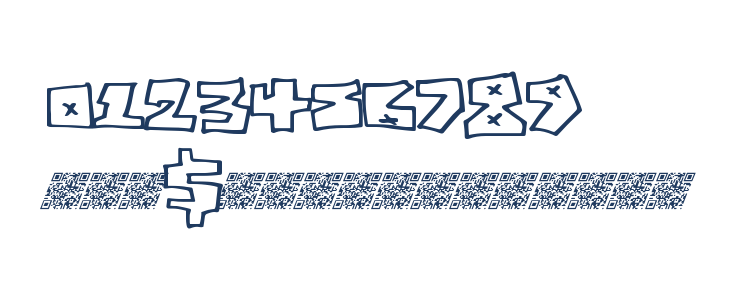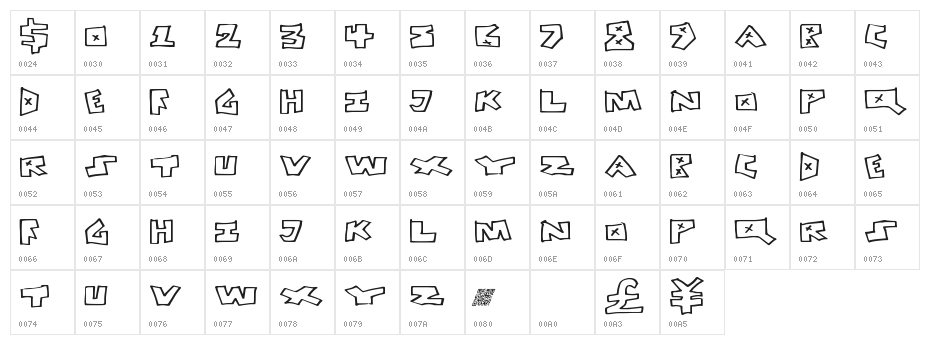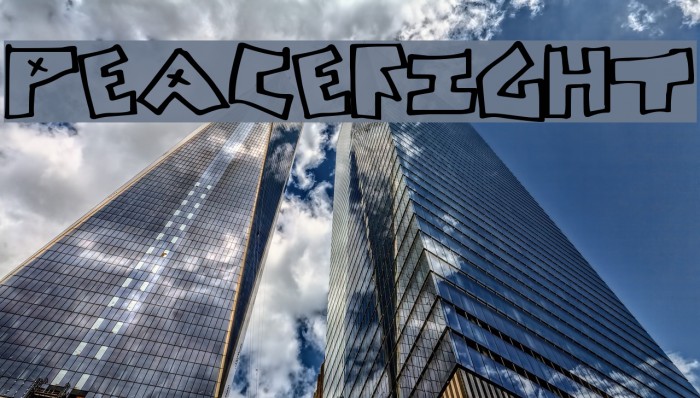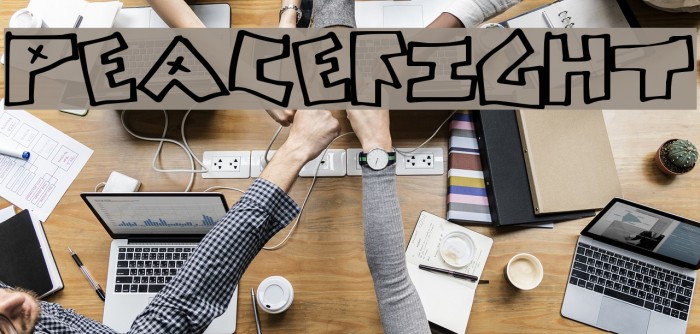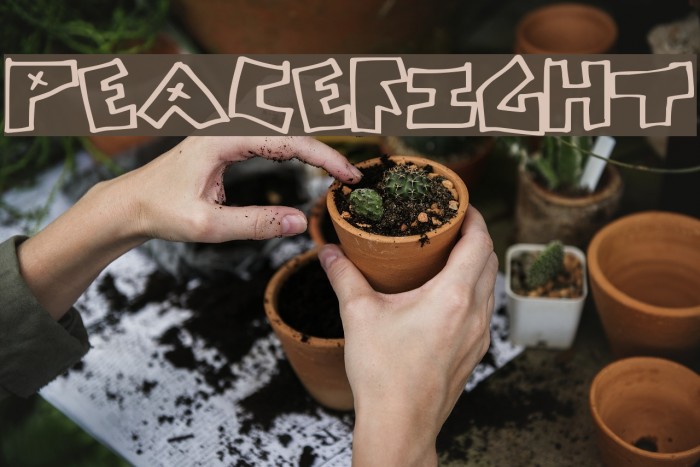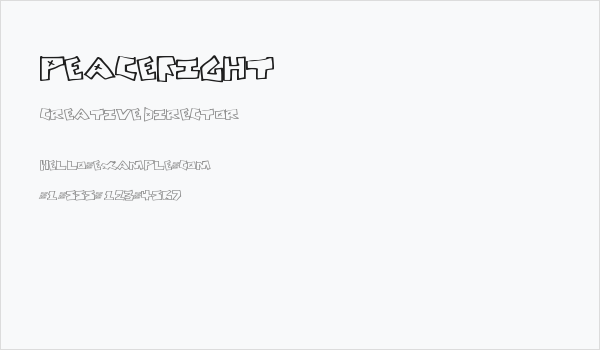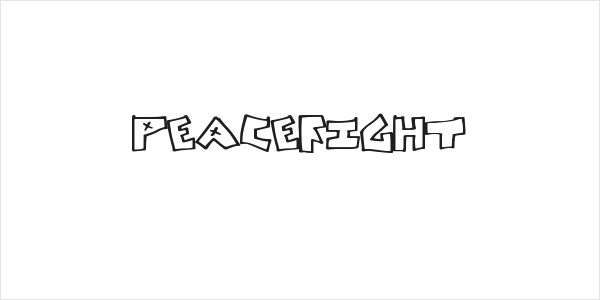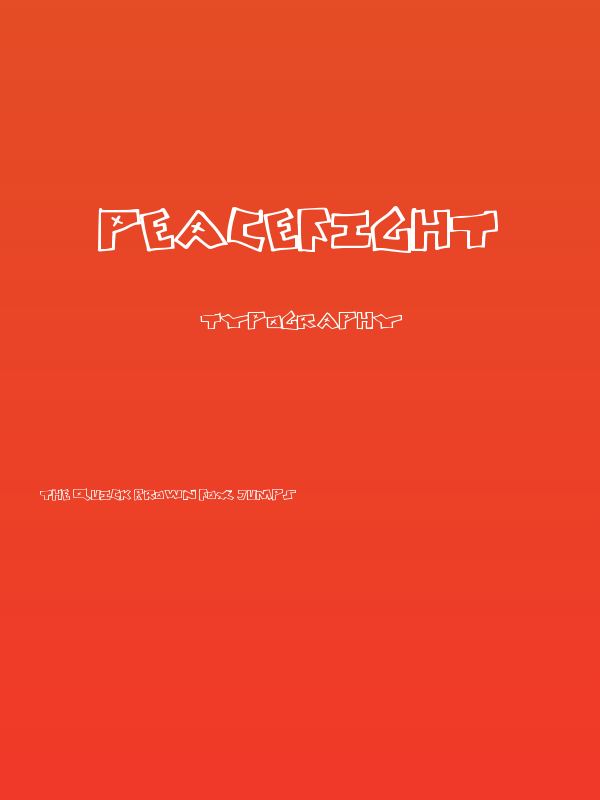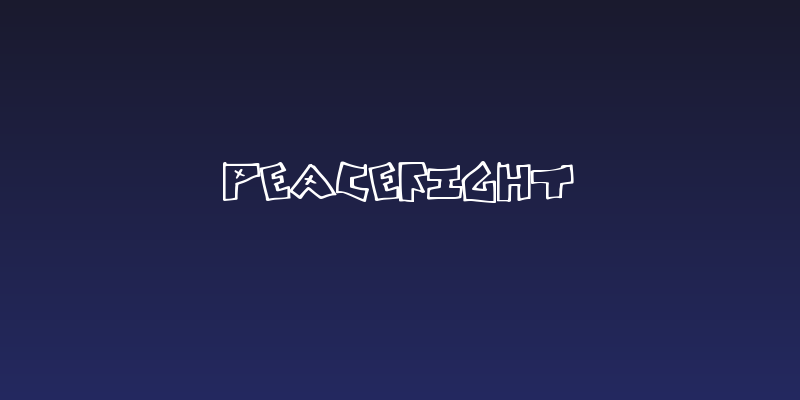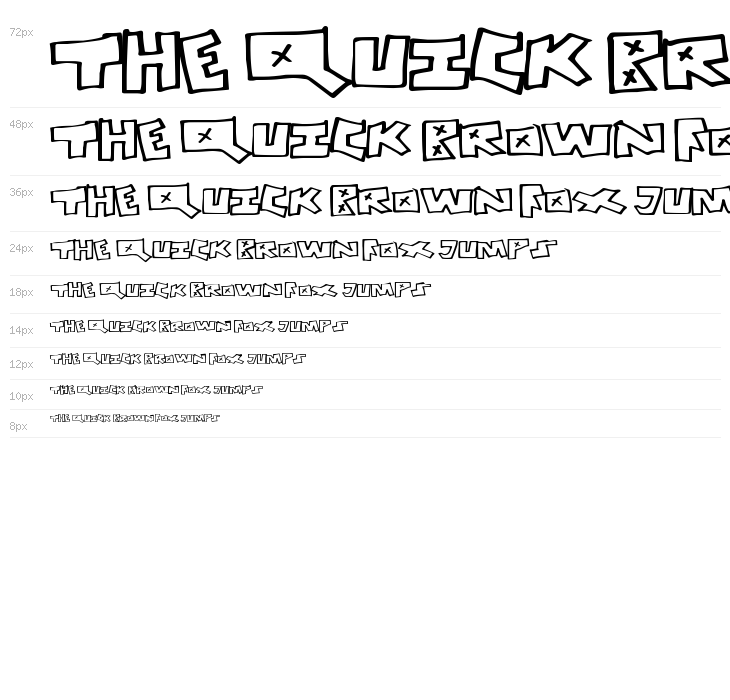
PeaceFight Font
PeaceFight Description
This font features a bold, graffiti-inspired style with thick, angular lines and a playful, rebellious character. Each letter is uniquely stylized with sharp edges and a hand-drawn appearance, giving it a dynamic and energetic feel. The uppercase and lowercase letters maintain a consistent design, while the numbers and special characters complement the overall aesthetic. The font's distinctive look is reminiscent of street art, making it ideal for projects that require a bold and unconventional visual impact.
| Overall Style | Modern, Urban |
| Proposed Projects | Ideal for street art designs, urban-themed posters, music album covers, and edgy branding projects. |